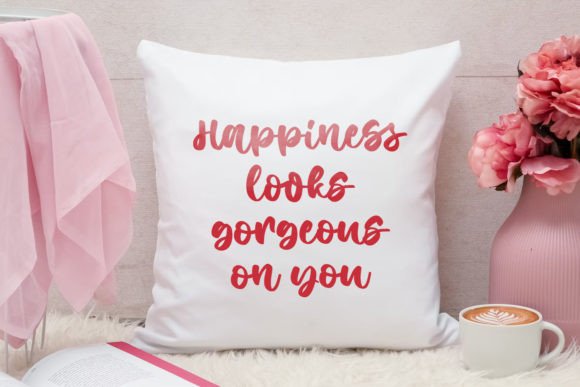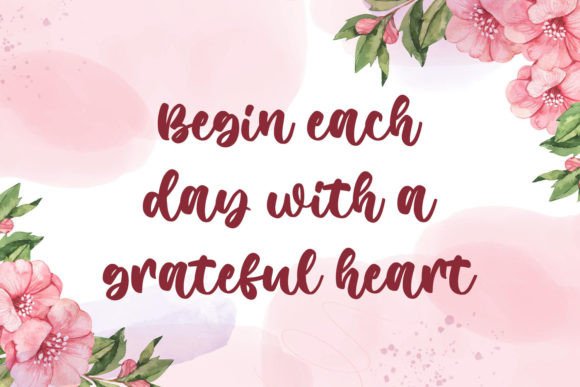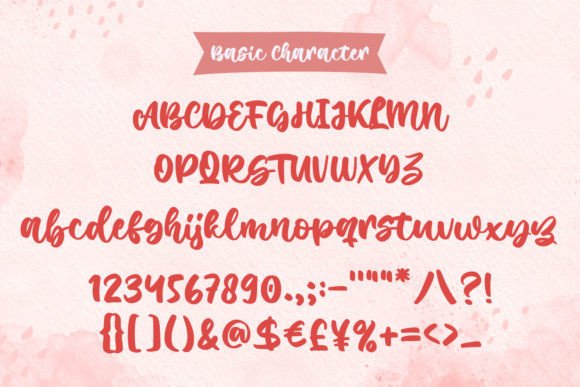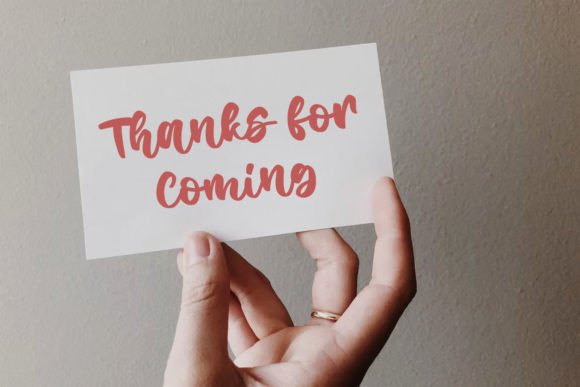
Discover the Charm of Aprilia Maudy Font: A Sweet and Beautiful Script Font
Are you looking for a font that can add a touch of sweetness and playfulness to your designs? Look no further than the Aprilia Maudy Font! This beautiful script font is perfect for creating joyful invitations, stunning stationary art, eye-catching social media posts, and much more. In this article, we’ll dive into the world of Aprilia Maudy Font and explore its features, uses, and benefits for designers and crafters.
What is Aprilia Maudy Font?
Aprilia Maudy Font is a sweet and beautiful script font that is designed to bring a touch of joy and playfulness to your designs. Its cute and playful style makes it perfect for a wide range of projects, from invitations and greeting cards to social media posts and digital art. The font is carefully crafted with beautiful swashes and elegant letterforms that will make your designs stand out.
Features of Aprilia Maudy Font
Aprilia Maudy Font comes with a range of features that make it a versatile and user-friendly font. Some of its key features include:
- Beautiful Swashes: The font comes with beautiful swashes that can be used to add a touch of elegance and sophistication to your designs.
- Elegant Letterforms: The font features elegant letterforms that are carefully crafted to create a beautiful and harmonious look.
- Playful Style: The font has a playful style that makes it perfect for creating joyful and eye-catching designs.
Uses of Aprilia Maudy Font
Aprilia Maudy Font is a versatile font that can be used for a wide range of projects, including:
- Invitations: Use the font to create beautiful and joyful invitations for weddings, birthday parties, and other special occasions.
- Stationary Art: Create stunning stationary art, such as greeting cards, letterheads, and journals, using the font.
- Social Media Posts: Use the font to create eye-catching social media posts that will grab the attention of your followers.
- Digital Art: Use the font to create beautiful digital art, such as illustrations, graphics, and typography.
Benefits of Using Aprilia Maudy Font
Using Aprilia Maudy Font can bring a range of benefits to your designs, including:
- Unique and Creative Look: The font can add a unique and creative look to your designs, setting them apart from others.
- Emotional Connection: The font’s playful and sweet style can help create an emotional connection with your audience.
- Versatility: The font can be used for a wide range of projects, making it a versatile addition to your font collection.
Tips for Using Aprilia Maudy Font
Here are some tips for using Aprilia Maudy Font:
- Use Swashes: Use the font’s swashes to add a touch of elegance and sophistication to your designs.
Aprilia Maudy Font is a sweet and beautiful script font that can add a touch of joy and playfulness to your designs. Its cute and playful style makes it perfect for a wide range of projects, from invitations and greeting cards to social media posts and digital art. With its range of features, uses, and benefits, Aprilia Maudy Font is a versatile and user-friendly font that is perfect for designers and crafters. So why not give it a try and see how it can elevate your designs?